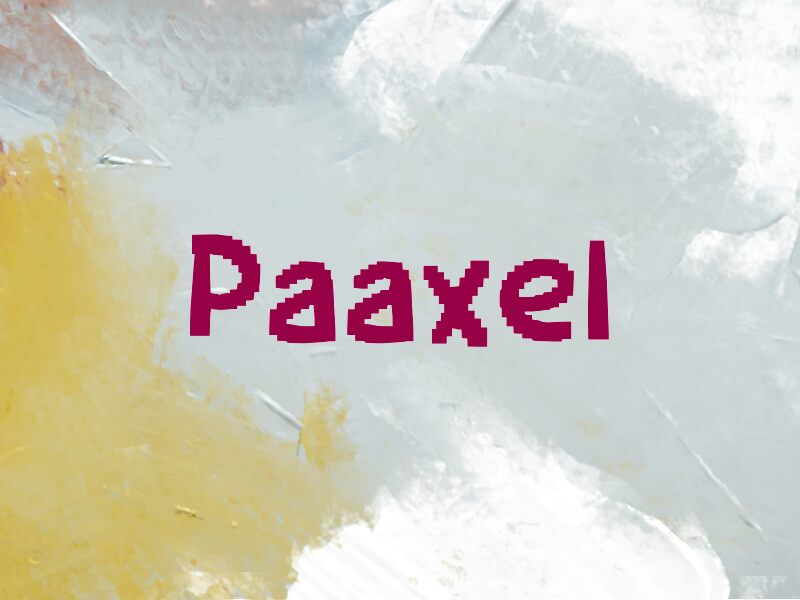
Paaxel font by wepfont.com is a free pixel bitmap typeface that feels like it was drawn by hand, one chunky square at a time. Its letters wobble just enough to look human and playful, with blocky edges that still read cleanly at small sizes. The result is a crunchy, lo-fi texture that keeps text lively instead of stiff or sterile.
Using Paaxel, this free font shines on retro game titles, indie posters, zines, glitchy YouTube thumbnails, sticker designs, and bold UI labels. The irregular rhythm gives headlines a friendly, DIY charm while remaining legible. For a simple pairing, use Paaxel for titles and a plain geometric sans for body text, keeping Paaxel a few sizes larger so its pixel warmth really shows.
Paaxel